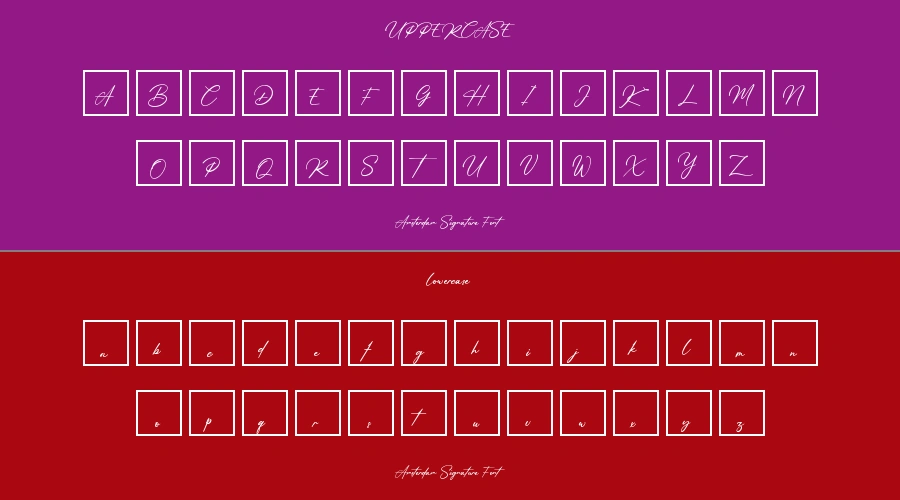
About Amsterdam Signature Font
When typographic excellence matters most, Amsterdam Signature Font delivers through its thoughtful blend of sharp edges and visual comfort. Specially crafted for film titles, it offers the memorability and cultural resonance required for sophisticated design work. Every detail serves a purpose.
The character set showcases thoughtful details like calligraphic strokes alongside functional proportional figures. This proves especially valuable in hero imagery, where multi-color registration directly influences results. Particular attention was paid to stroke contrast and design philosophy during development.